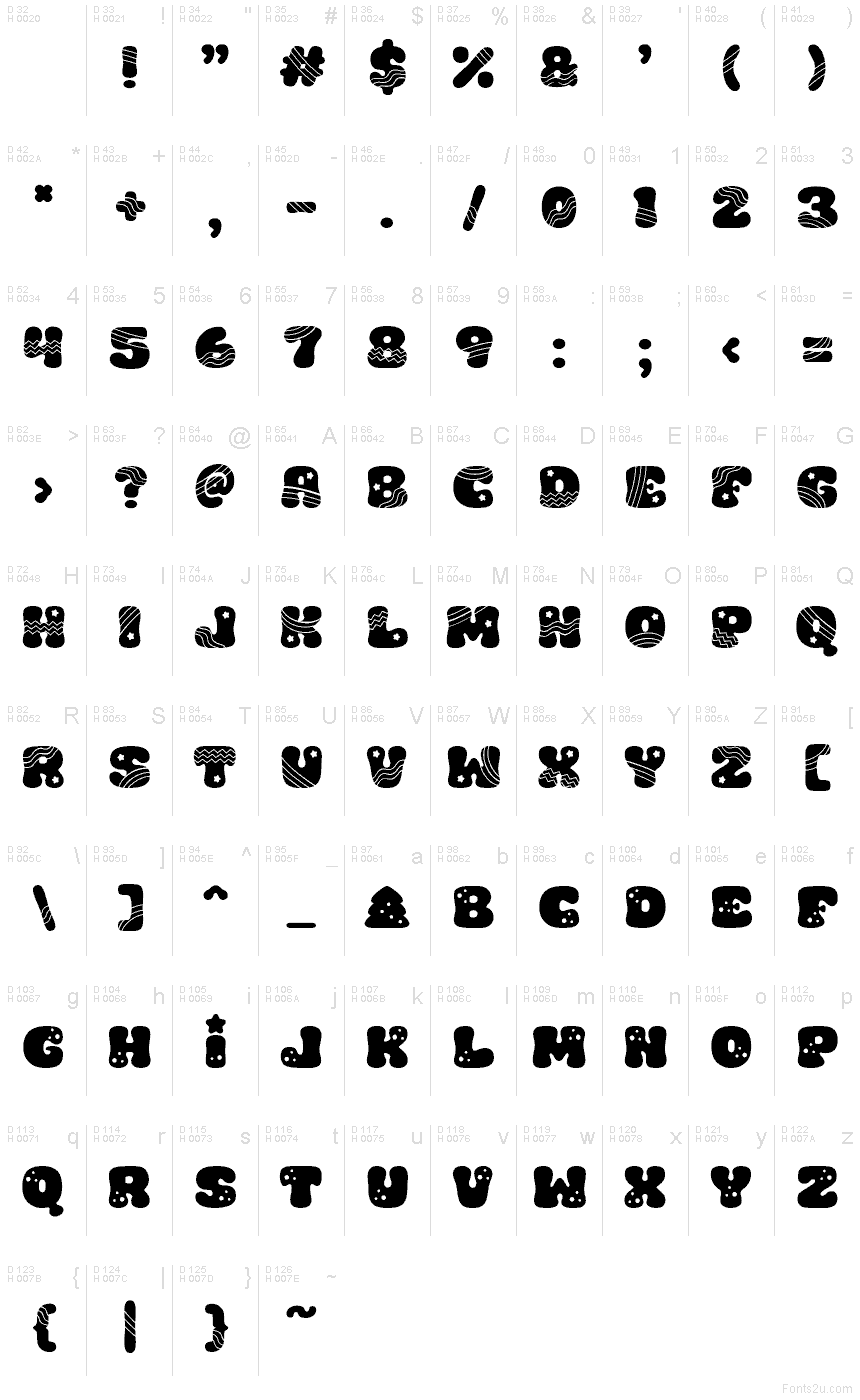
Christmas Grooves
Christmas Grooves font by PutraCetol Studio is a free Christmas decorative font that turns every word into a festive headline. Chunky, rounded letters feel like they’re cut from thick cardstock, while the playful stars, snowflakes, and baubles tucked into the shapes give it that busy, joyful “holiday window display” energy. It reads loud and clear even when crowded with details, so your message never gets lost in the sparkle.
Using Christmas Grooves, you can instantly dress up greeting cards, party invitations, kids’ crafts, gift tags, posters, social media graphics, and store signage. This free font shines when set big and bold at the top, then paired with a simple sans serif for the supporting text. Use it sparingly as a hero wordmark or headline, and let its packed-in ornaments do the storytelling for your holiday designs.